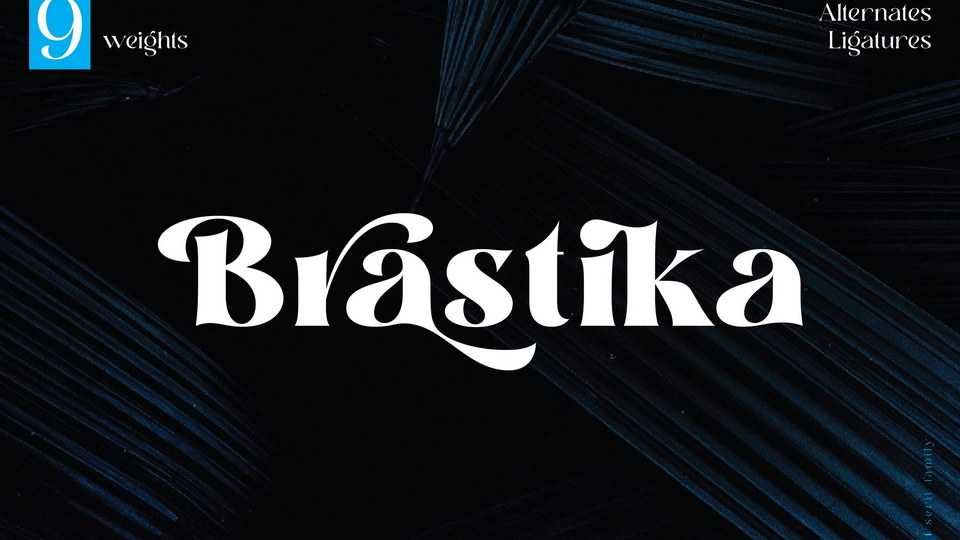
Download Brastika font, an elegant serif typeface to give you a wide range for create an unique typographic design results. Brastika is suitable for many different projects such as logo, branding, poster, magazines, labels, merchandise, invitation, presentation, advertising, quotes and so much more.
Designer: Putu Eka Hermawan